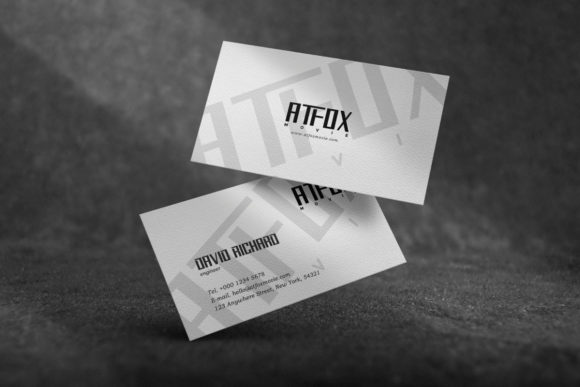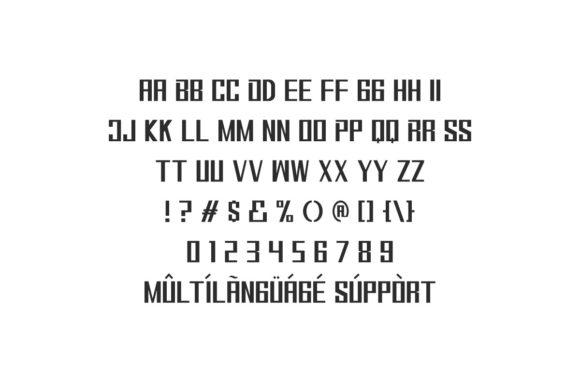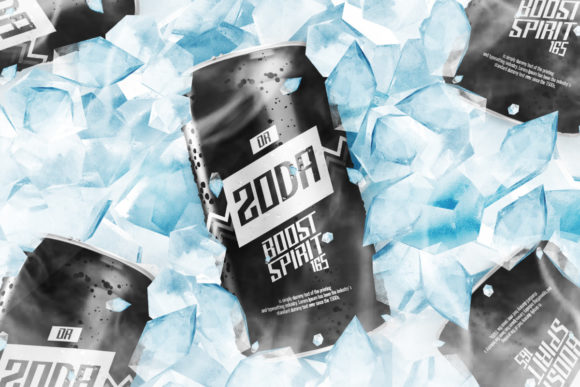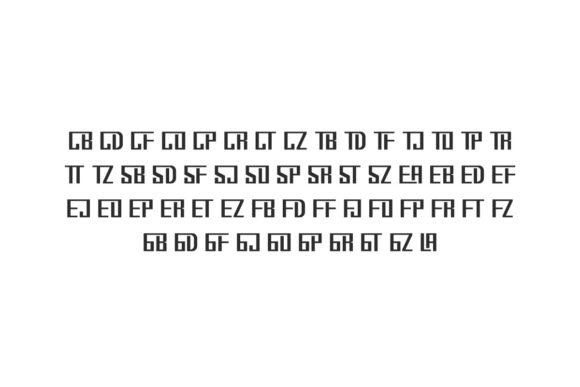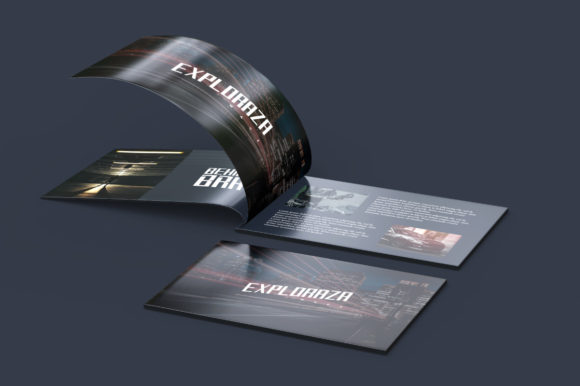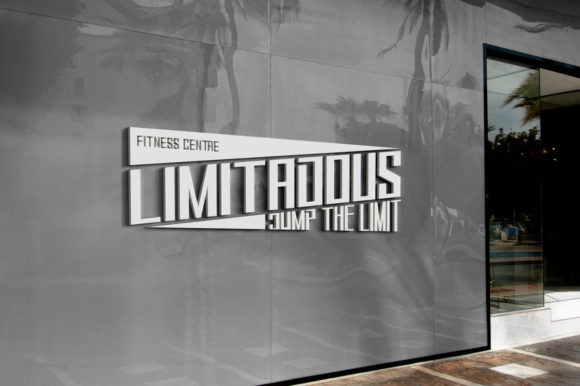
Unleash Your Creativity with Clastra Font: A Cool and Robotic Styled Font
Are you a designer or crafter looking for a unique and versatile font to elevate your creative projects? Look no further than Clastra Font! This cool and robotic styled font is perfect for adding a touch of modernity and sophistication to your designs. In this article, we’ll explore the features and benefits of Clastra Font, and show you how it can help take your creative ideas to the next level.
What is Clastra Font?
Clastra Font is a modern, robotic styled font that is designed to be highly versatile and adaptable. Its sleek and futuristic design makes it perfect for a wide range of projects, from digital media and branding to crafting and DIY projects. Whether you’re creating a logo, a poster, or a social media graphic, Clastra Font is sure to make your design stand out.
Key Features of Clastra Font
- PUA Encoded: Clastra Font is PUA (Private Use Area) encoded, which means that you can access all of the glyphs and swashes with ease. This makes it easy to customize your designs and add unique touches.
- Highly Versatile: Clastra Font can be matched with an incredibly large set of projects, making it a great addition to your font library.
- Modern and Sophisticated: The robotic styled design of Clastra Font gives it a modern and sophisticated look that’s perfect for designs that need a touch of futurism.
Benefits of Using Clastra Font
So why should you choose Clastra Font for your next project? Here are just a few benefits of using this amazing font:
- Adds a Touch of Modernity: Clastra Font’s sleek and futuristic design adds a touch of modernity to any project, making it perfect for designs that need to look fresh and cutting-edge.
- Increases Readability: The clear and clean design of Clastra Font makes it easy to read, even at small sizes.
- Customizable: With PUA encoding, you can easily access all of the glyphs and swashes, allowing you to customize your designs and add unique touches.
How to Use Clastra Font in Your Designs
Using Clastra Font in your designs is easy! Here are a few tips to get you started:
- Pair it with Other Fonts: Clastra Font pairs well with a wide range of fonts, so don’t be afraid to experiment and find the perfect combination for your design.
- Experiment with Swashes: With PUA encoding, you can easily access all of the glyphs and swashes, allowing you to add unique touches to your designs.
- Use it for Headings and Titles: Clastra Font’s bold and futuristic design makes it perfect for headings and titles.
- Is Clastra Font easy to read? Yes, Clastra Font is designed to be clear and easy to read, even at small sizes.